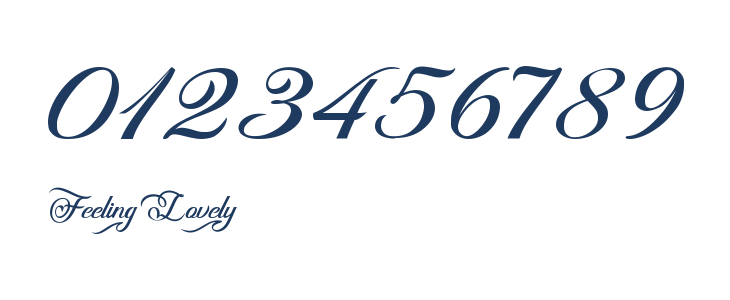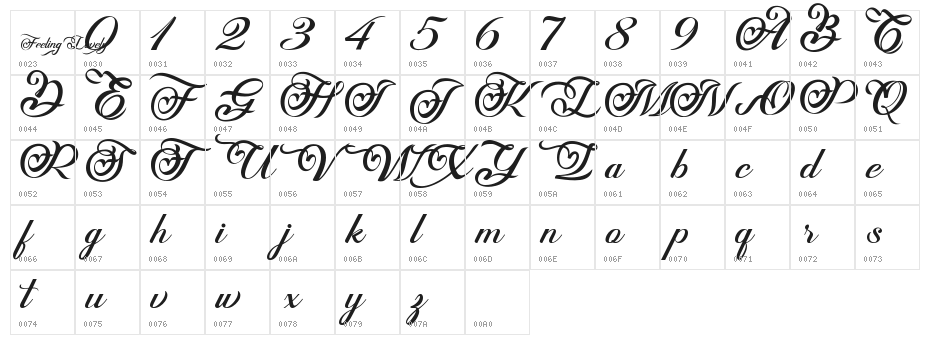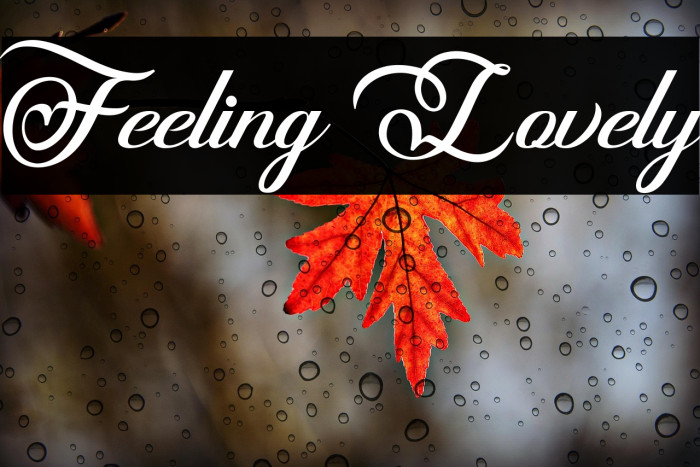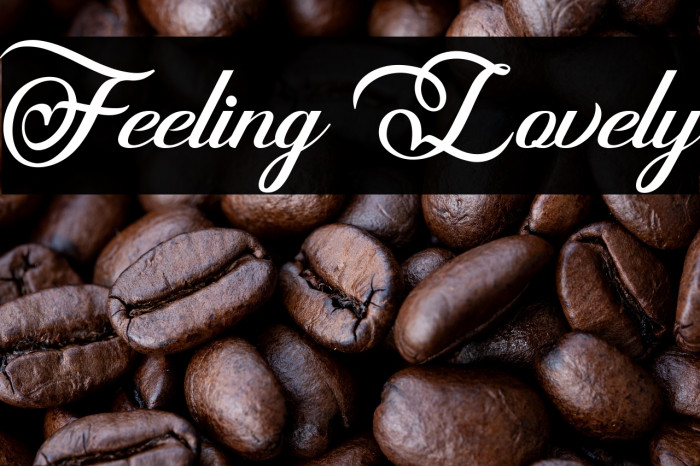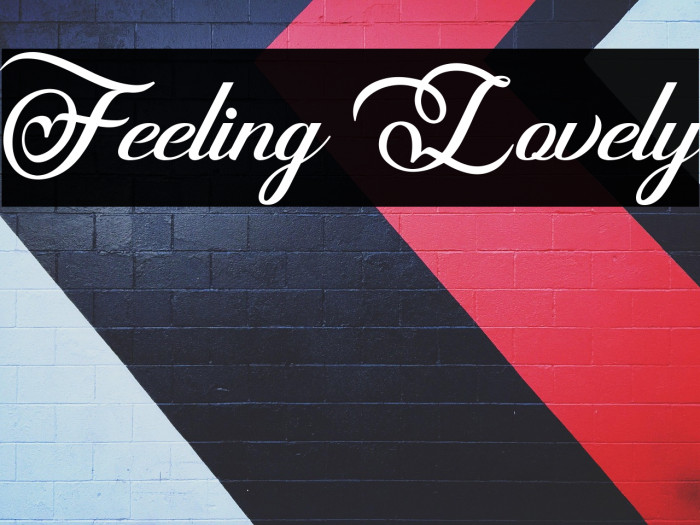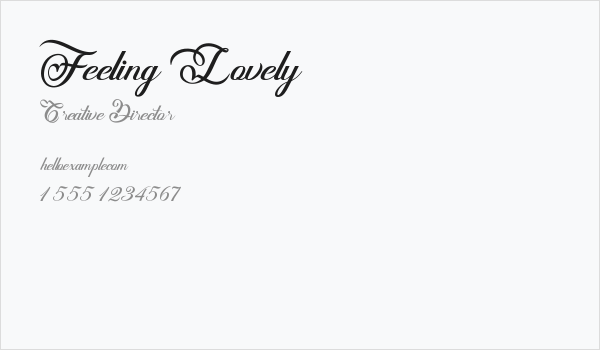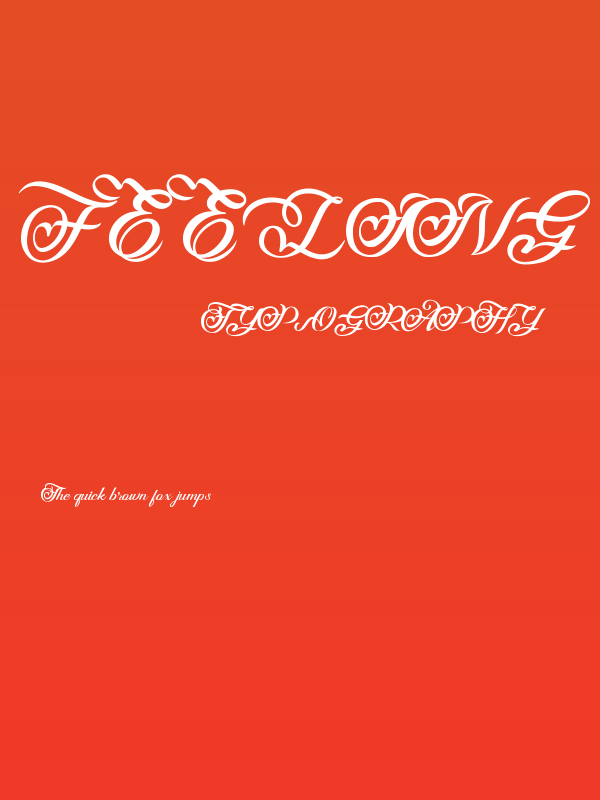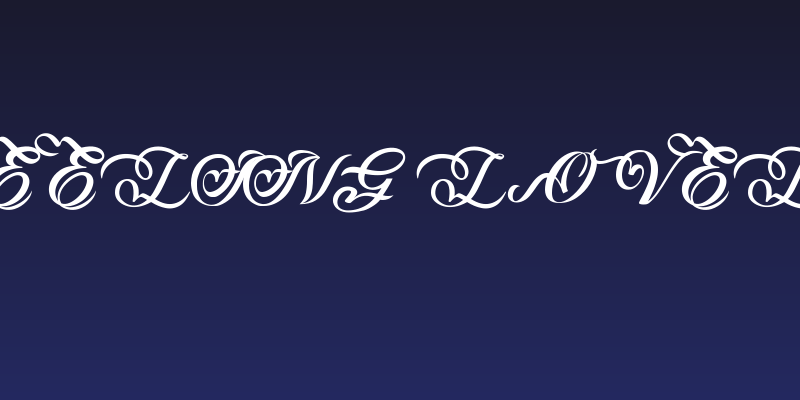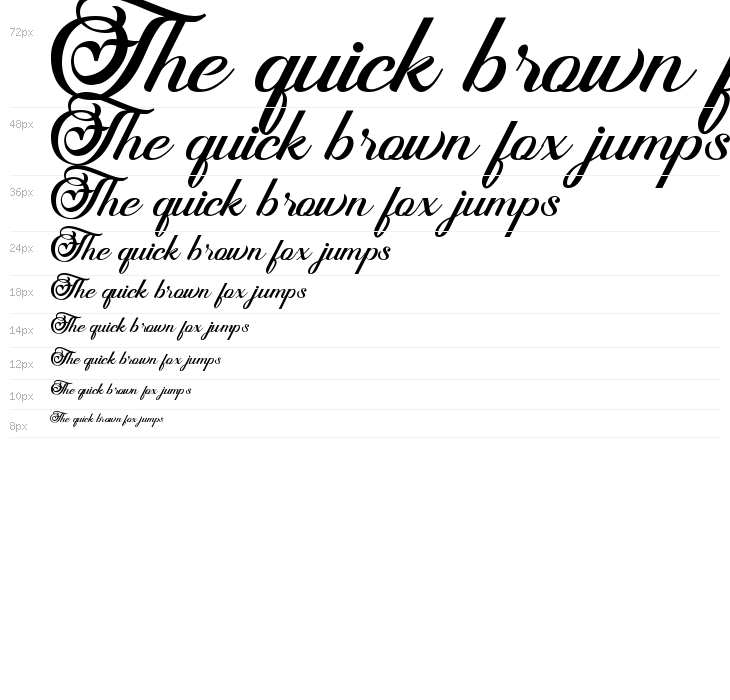
Feeling Lovely Font
Feeling Lovely Description
This elegant script font exudes a sense of romance and sophistication, characterized by its flowing, cursive letterforms. The uppercase letters are adorned with intricate swirls and flourishes, adding a decorative touch that enhances its ornate style. The lowercase letters maintain a smooth, connected appearance, creating a harmonious flow that is both graceful and stylish. The numerals are designed with a similar flair, ensuring consistency throughout the typeface. This font's overall aesthetic is perfect for conveying elegance and charm, making it ideal for formal invitations, branding, and other creative projects that require a touch of sophistication.
| Use Case | Invitations, Branding, Decorative Text |
| Proposed Projects | Ideal for wedding invitations, luxury branding, greeting cards, and elegant packaging designs. |